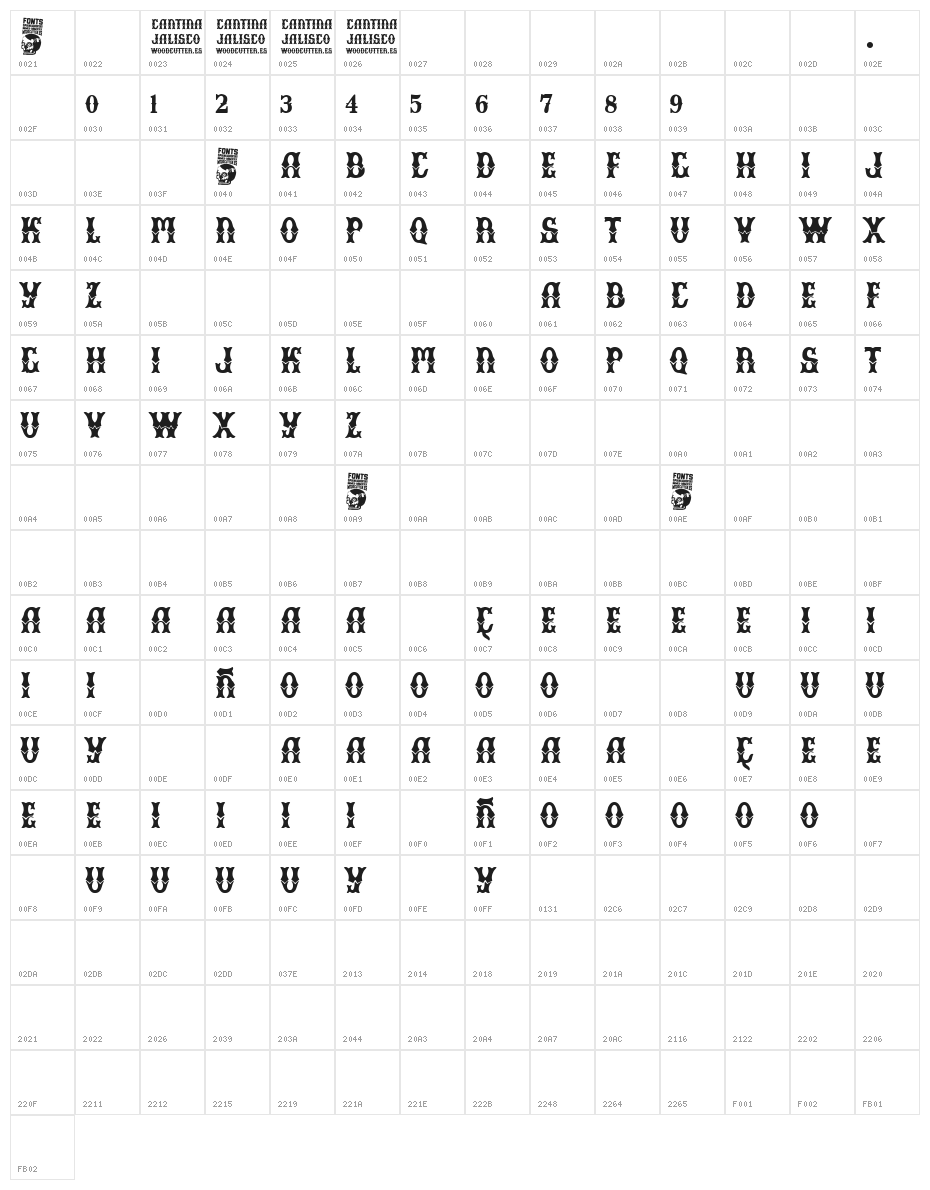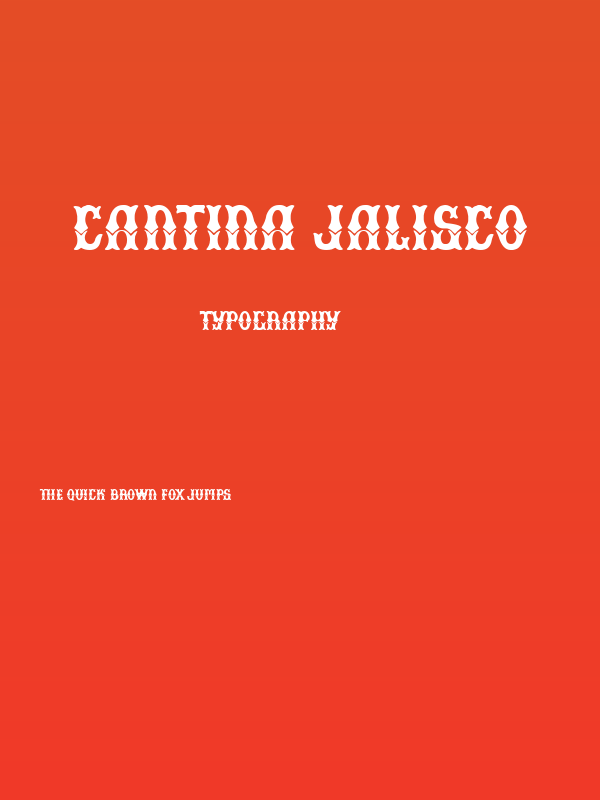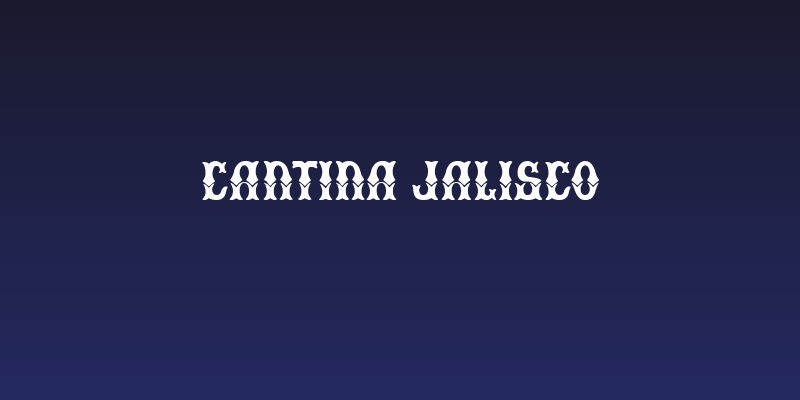
Cantina Jalisco Font
Cantina Jalisco Description
This font features a bold and decorative style with intricate, ornate details that give it a unique and eye-catching appearance. The characters are designed with a high level of contrast, showcasing thick strokes and elaborate curves that create a dramatic visual impact. The uppercase and lowercase letters maintain a consistent style, with each character exhibiting a distinct flair that enhances the overall aesthetic. The numbers and special characters are equally stylized, ensuring a cohesive look across all elements. This font's design is reminiscent of traditional and cultural motifs, making it suitable for projects that require a touch of elegance and sophistication.
| Proposed Projects | Ideal for branding, posters, event invitations, and any project that requires a striking and elegant typeface. |